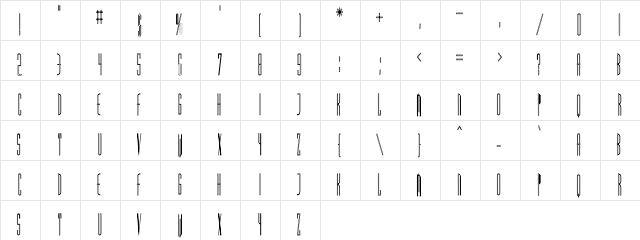
Picassos Hollow Cond Regular
Design Context for Picassos Hollow Cond Typeface
Picassos Hollow Cond offers clean, dependable letterforms without strong stylistic allegiance, making it a practical choice for designers who need flexibility. The condensed width makes it efficient for tight spaces without sacrificing legibility.